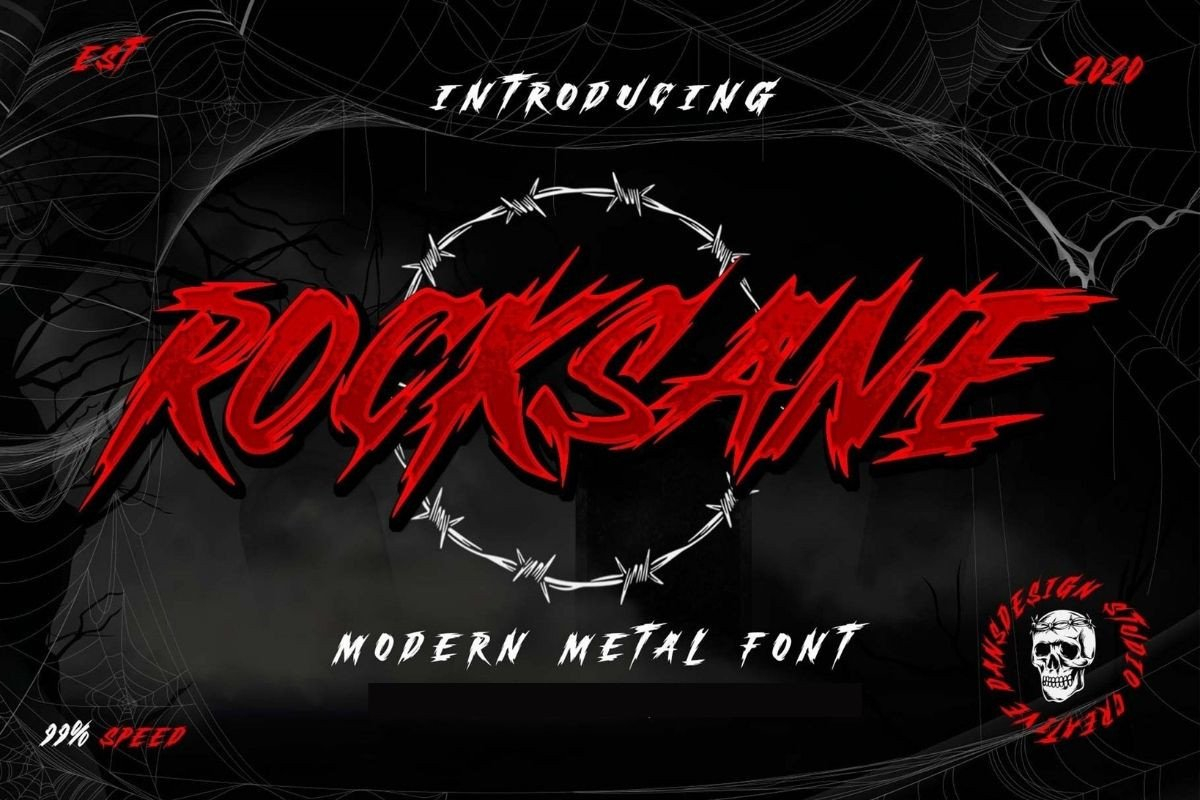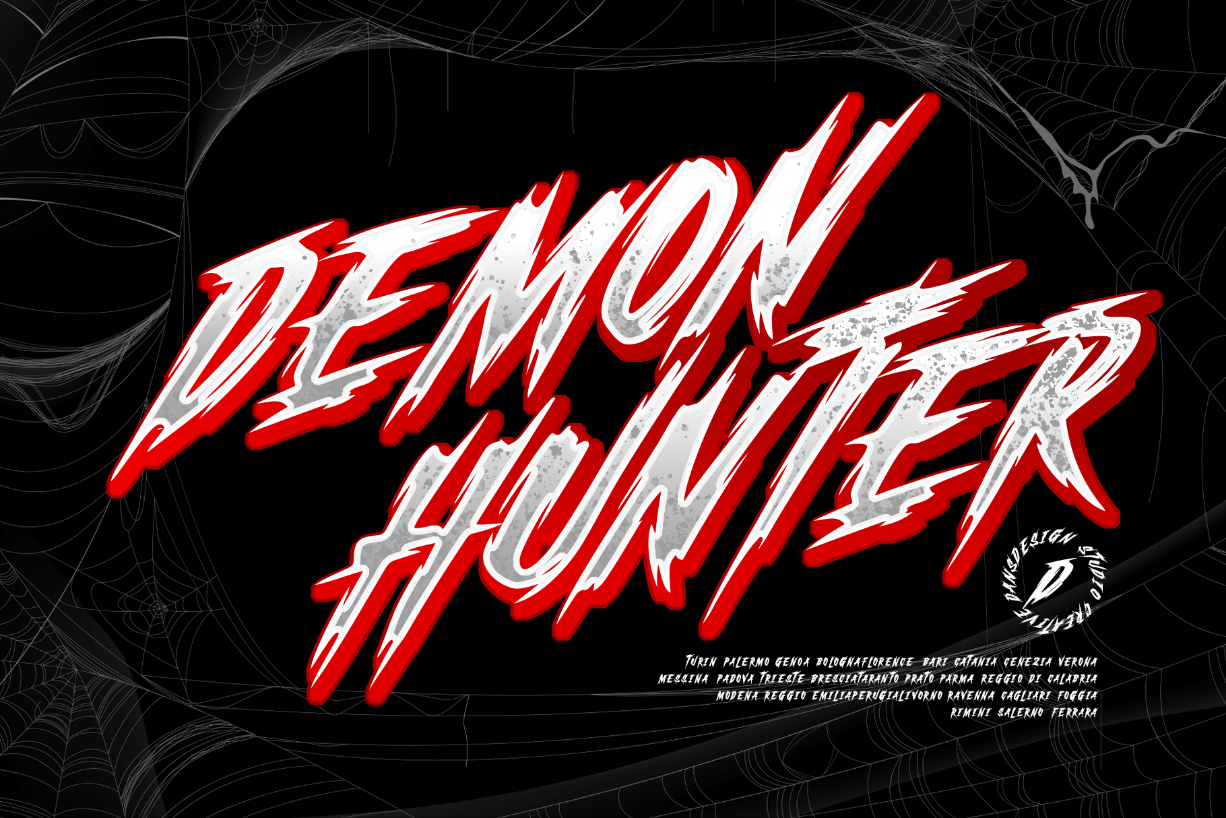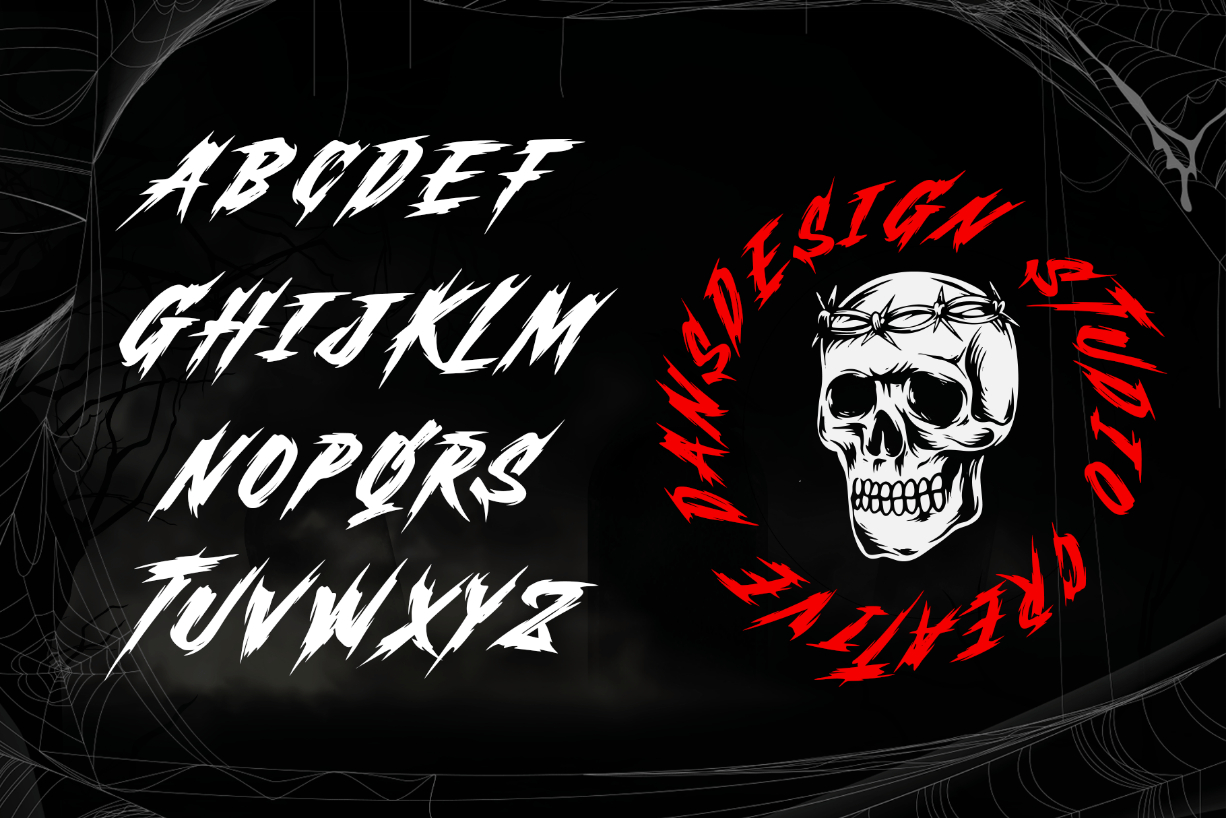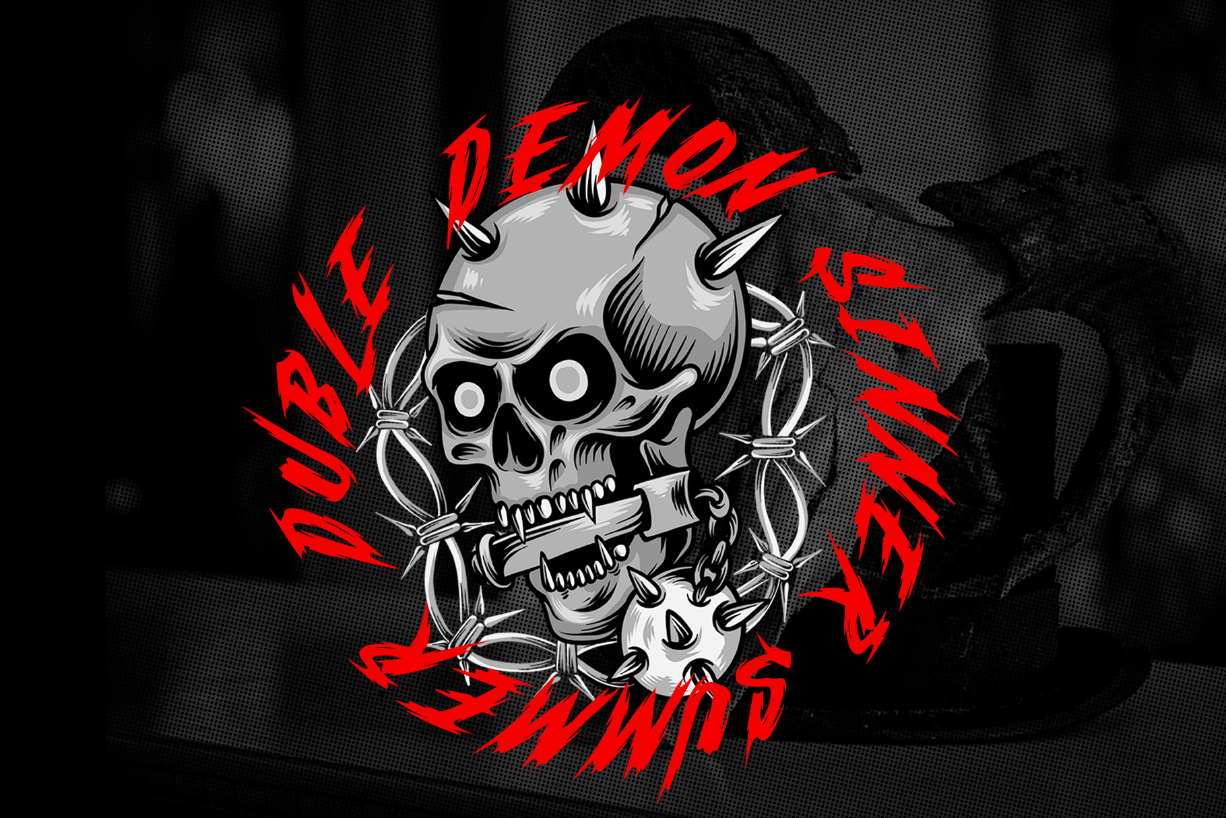
About Rocksane Font
Rocksane is a distinct, highly detailed, Horror Metal Font. It would make a great choice for exquisite retro-urban designs, tattoo business branding, logos, vintage designs, and more.